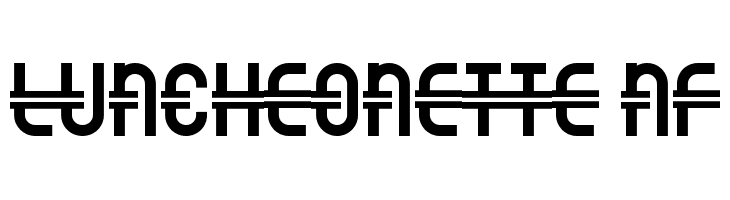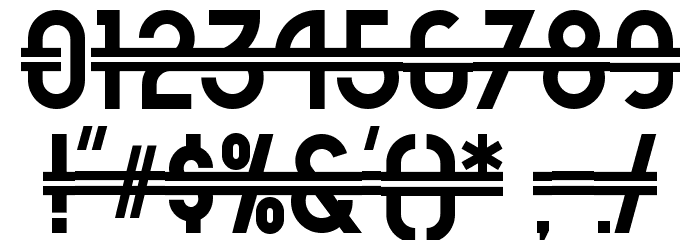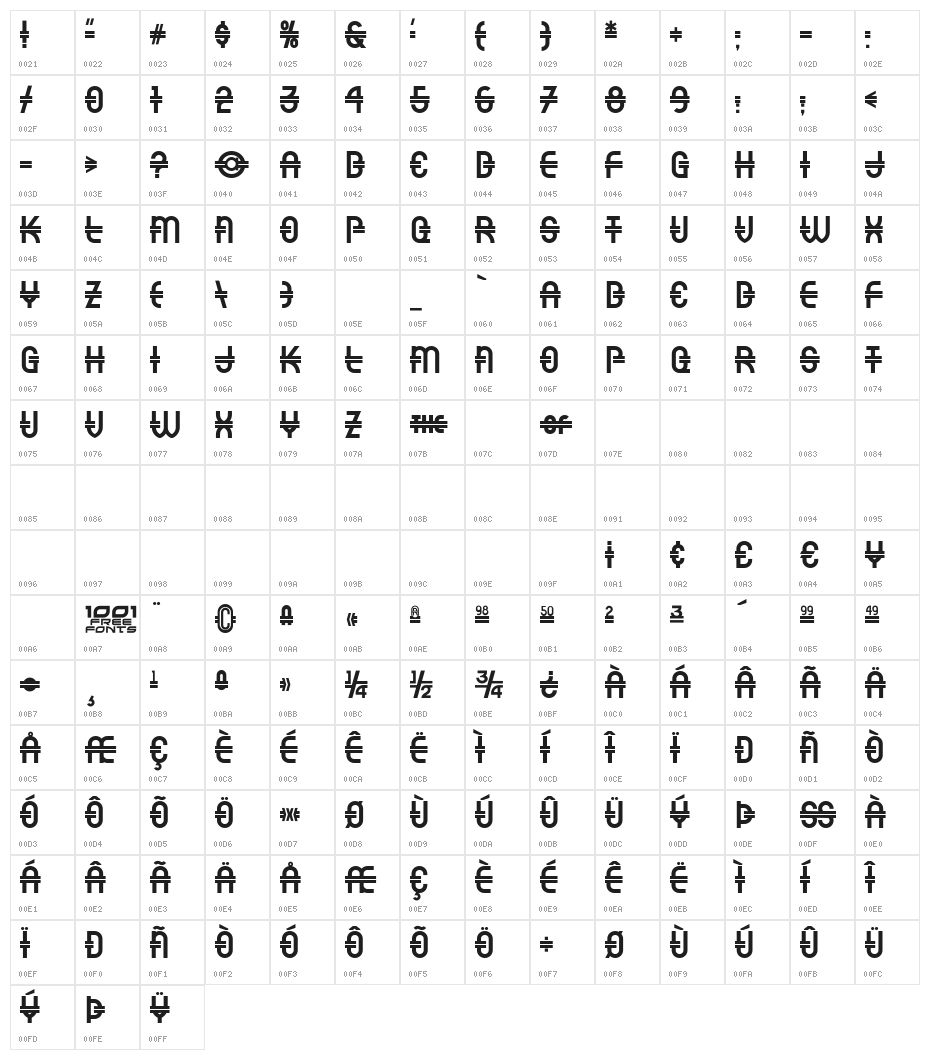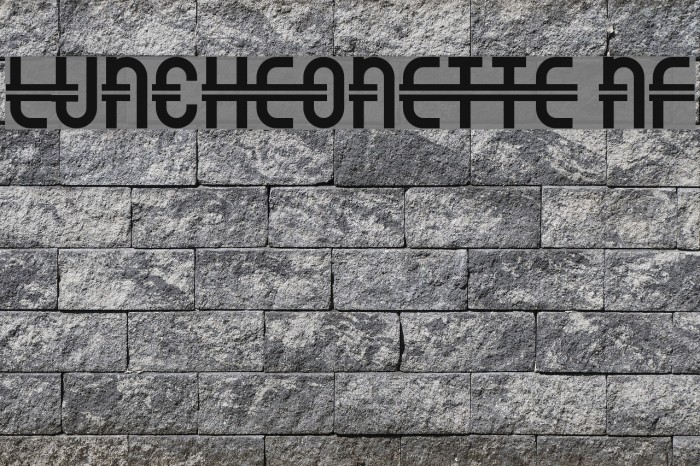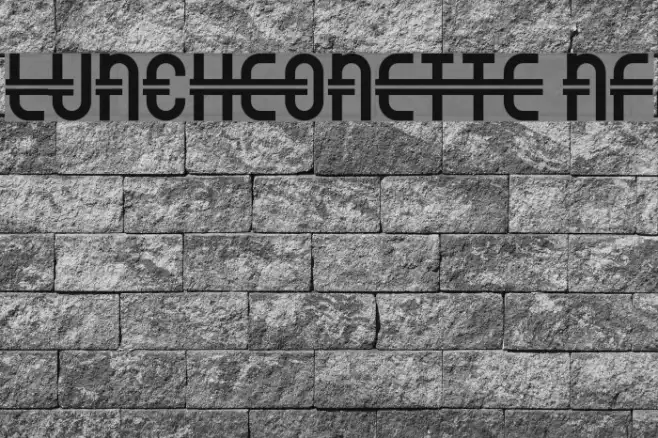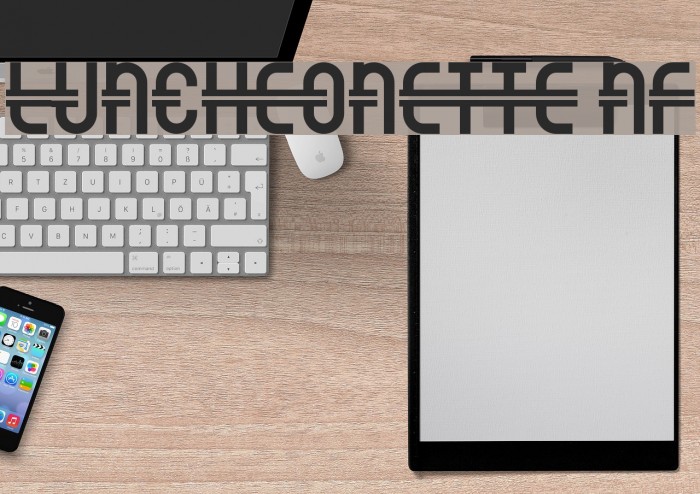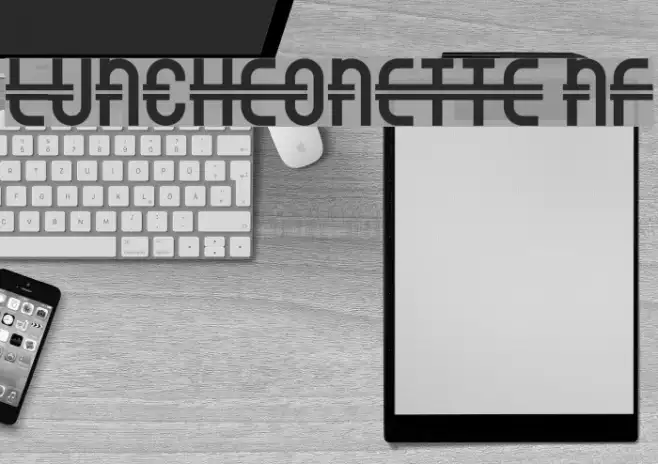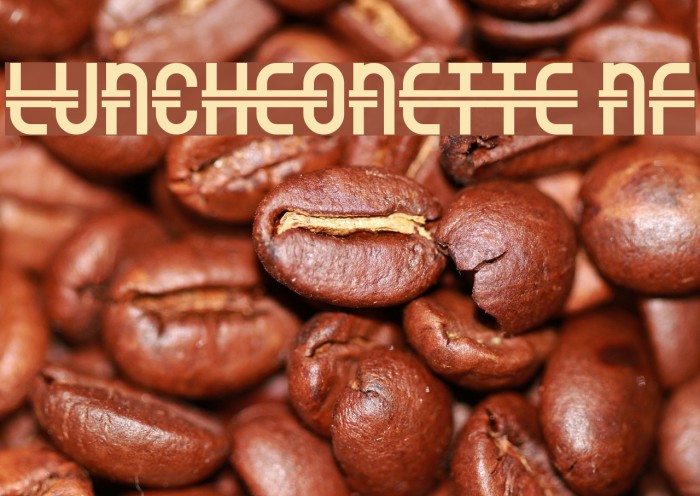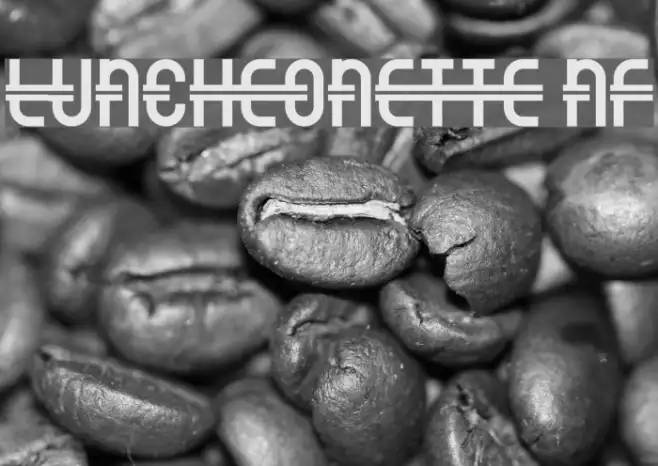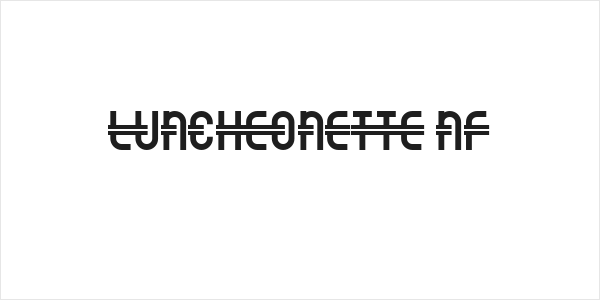
Luncheonette NF Font
Luncheonette NF Description
This font features a distinct and bold design with a unique horizontal line cutting through each character, creating a striking visual effect. The characters are geometric and sans-serif, with a modern and futuristic appearance. The uppercase and lowercase letters maintain a consistent style, while the numerals and special characters also follow the same design principle. The horizontal line adds an element of intrigue and complexity, making it stand out in any design project. This font is ideal for creative and unconventional uses where a bold statement is needed.